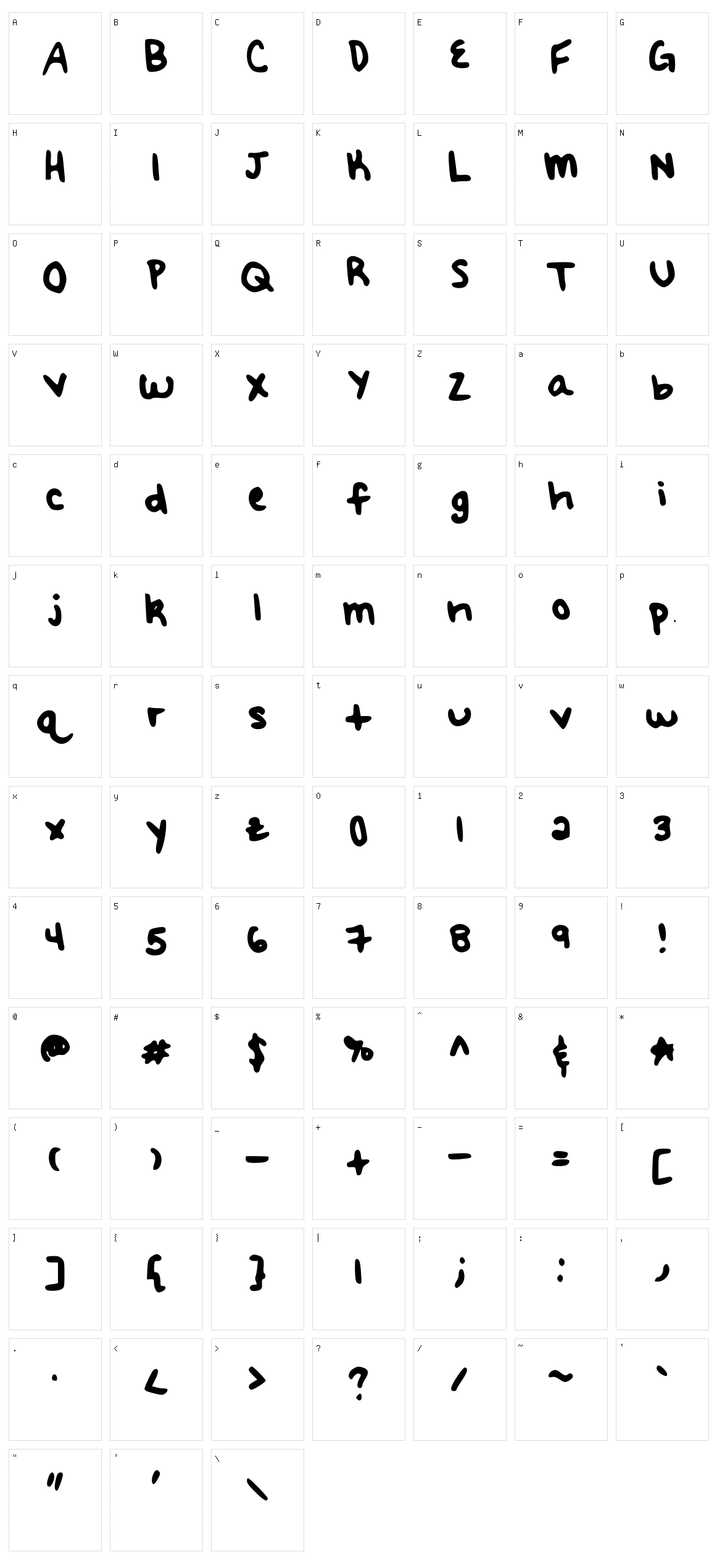
The free font Meredith's Hand is carefully designed by Nicole Daugherty, showcasing a thoughtful balance of creativity and usability and falls under the Script font style. When you download the ZIP file, it contains only 17.52 KB of font files, making it lightweight and quick to download. Please review the license details below to understand permitted usage and distribution rights. If license information is not available, we recommend using this font for personal projects only or contacting the author directly for commercial usage permissions.